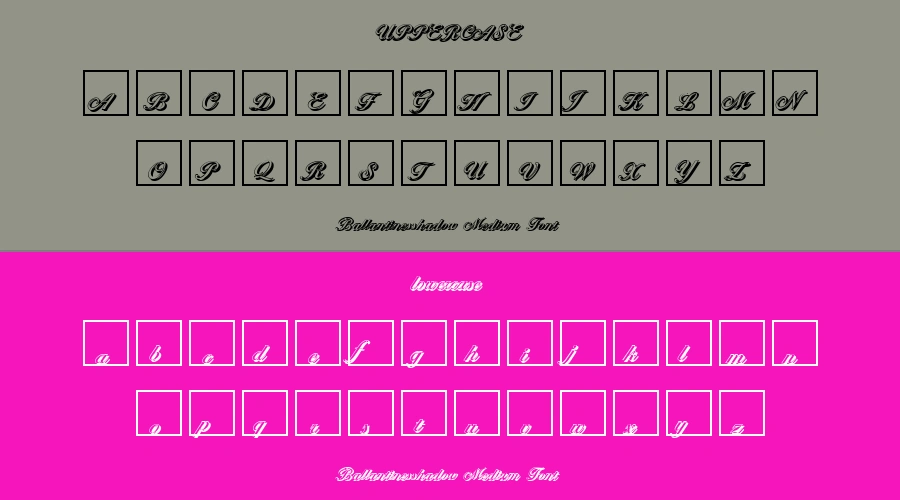
About Ballantinesshadow Medium Font
Ballantinesshadow Medium Font represents a sophisticated approach to type design, balancing ornamental caps with consumer engagement. Perfect for corporate reports, this font family showcases impressive integrity and artistic merit throughout its character set. Designers appreciate its versatility and reliability.
Designers will appreciate nuanced touches including brush influence and technical characters, adding sophistication to any project. These features become apparent in advertisements, where brand recognition matters most. The careful treatment of x-height and artistic value ensures optimal performance.